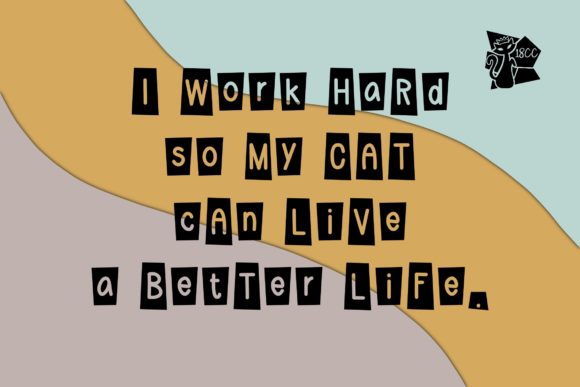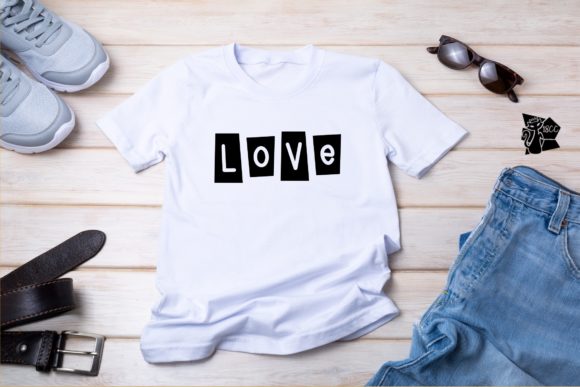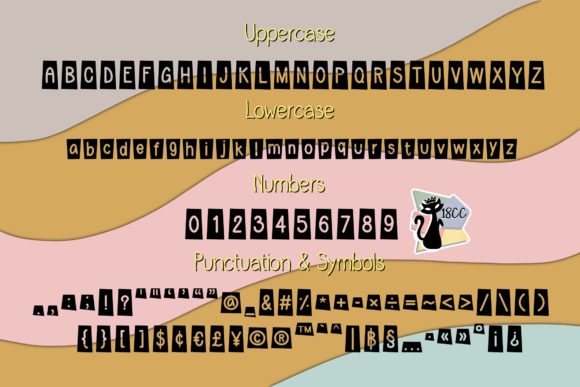
BlackBox Font
BlackBox is a cool and fun looking decorative font. Whether you’re using it for crafts, digital design, presentations, or making greeting cards, this font has the potential to become your favorite go-to font, no matter the occasion!